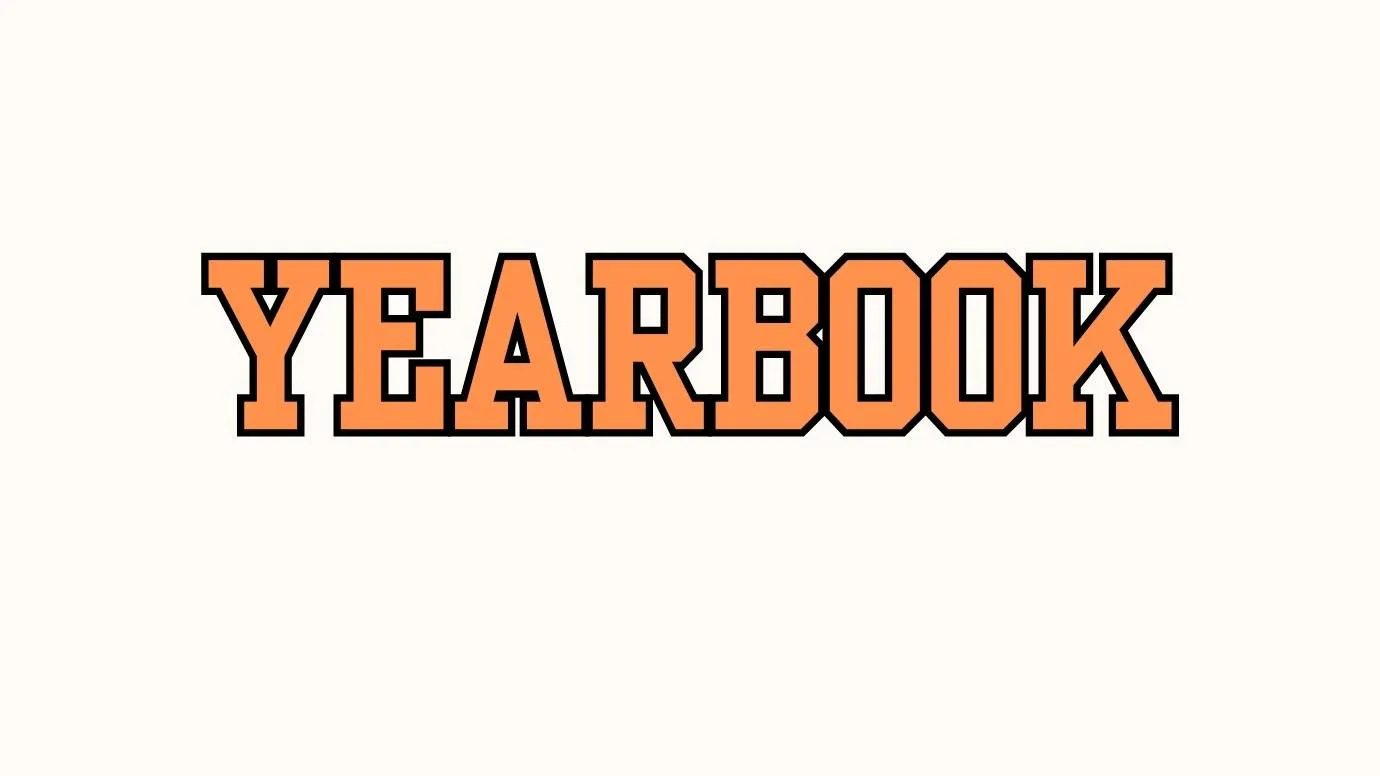
Yearbook Font Family is a modern techno-style typeface that is manufactured and designed with classic thick and bold strokes. This typography falls in the classification of the slab serif family of fonts.
This classic typeface is attainable in different advanced features that increase the worth of this classic font family. This texture is attainable in two classic and unique styles including solid and outline.
Yearbook Font
TypeSlab Serif